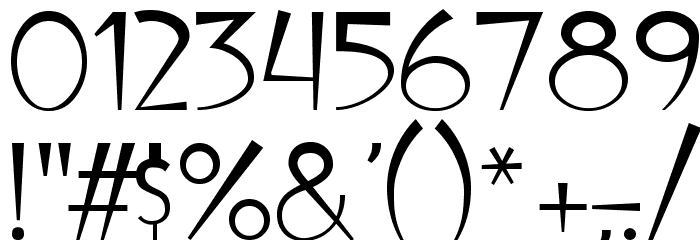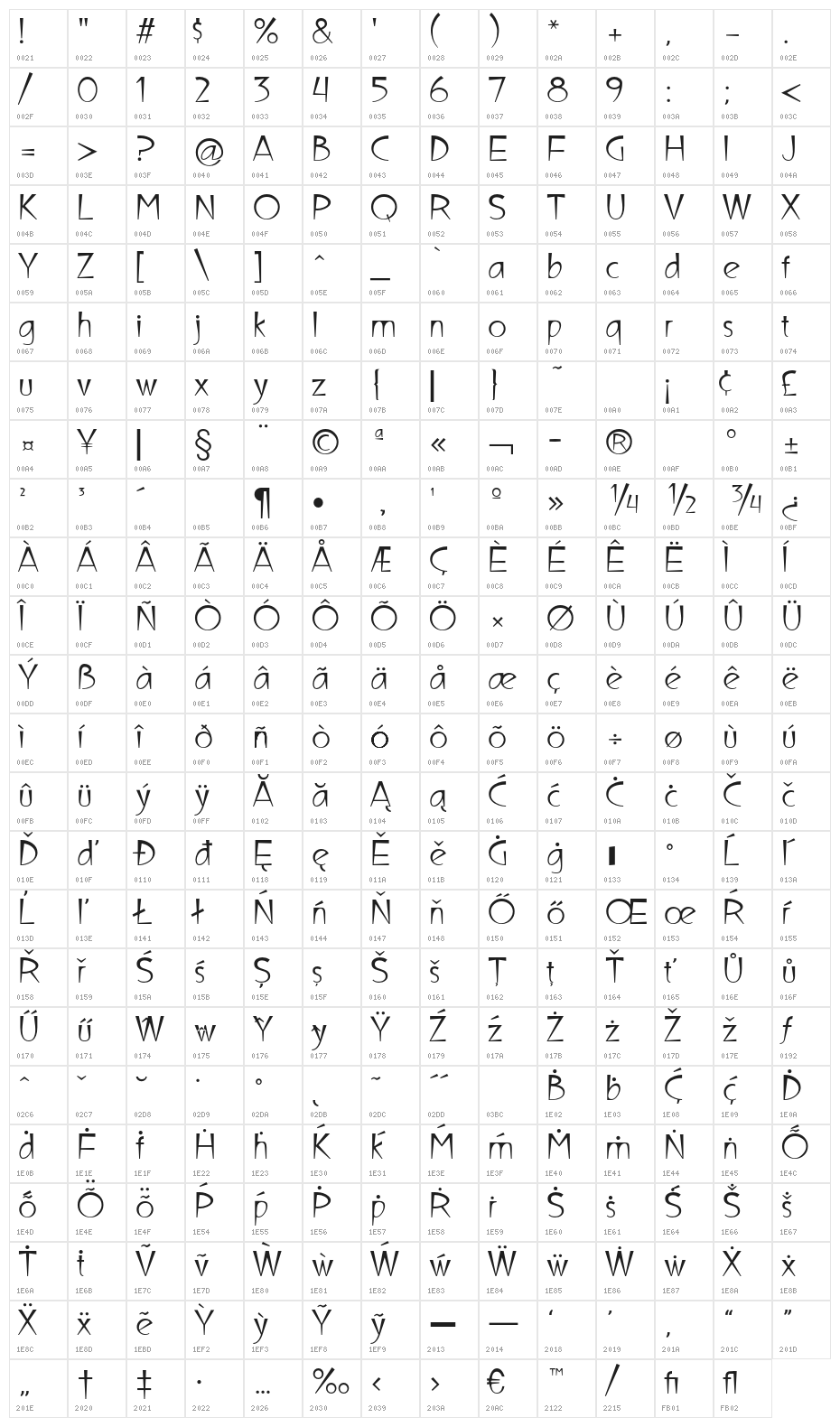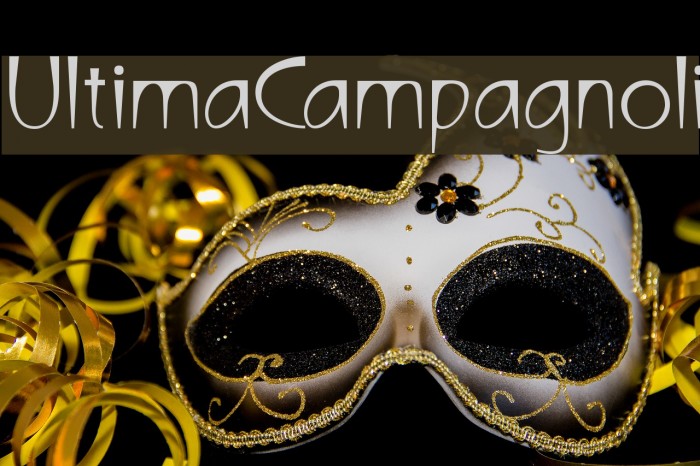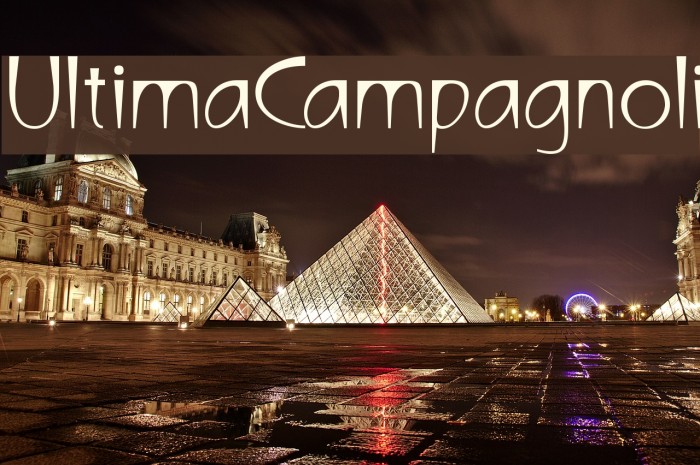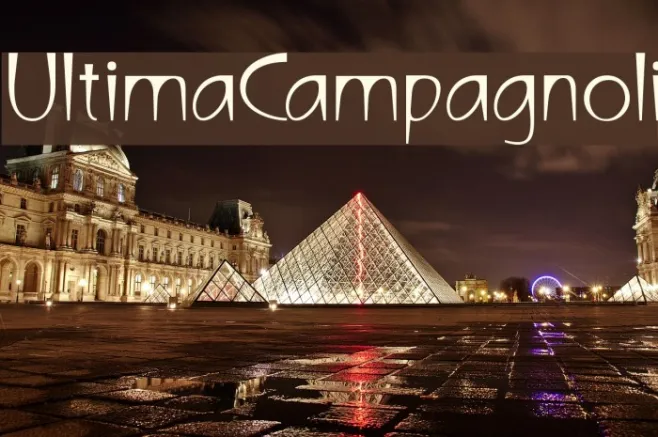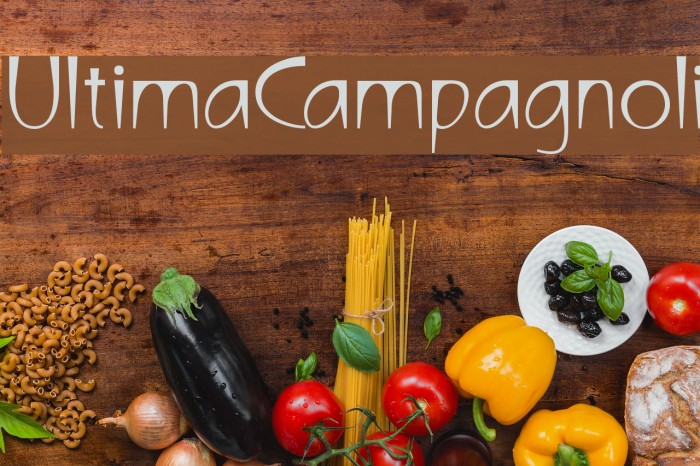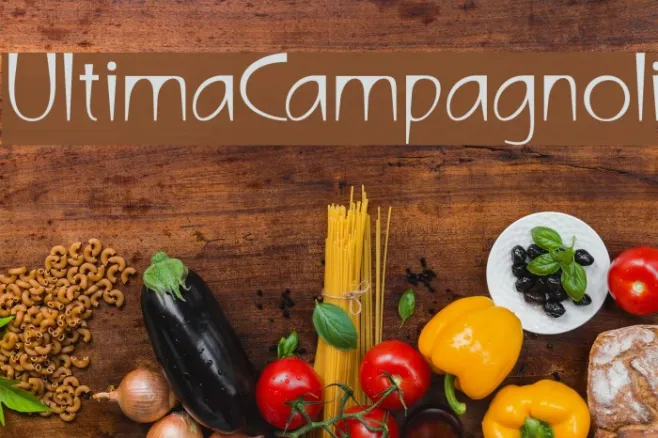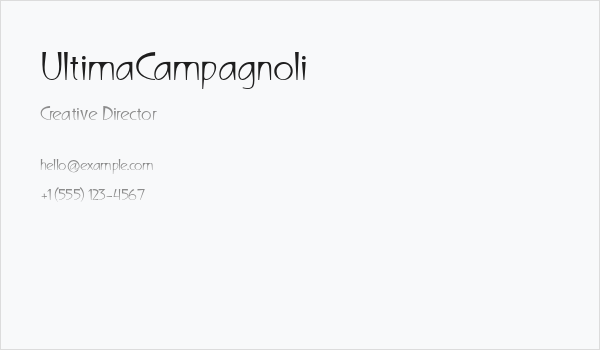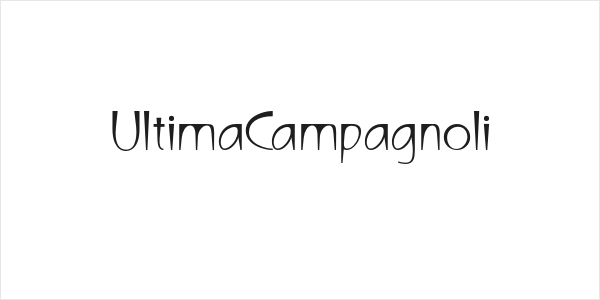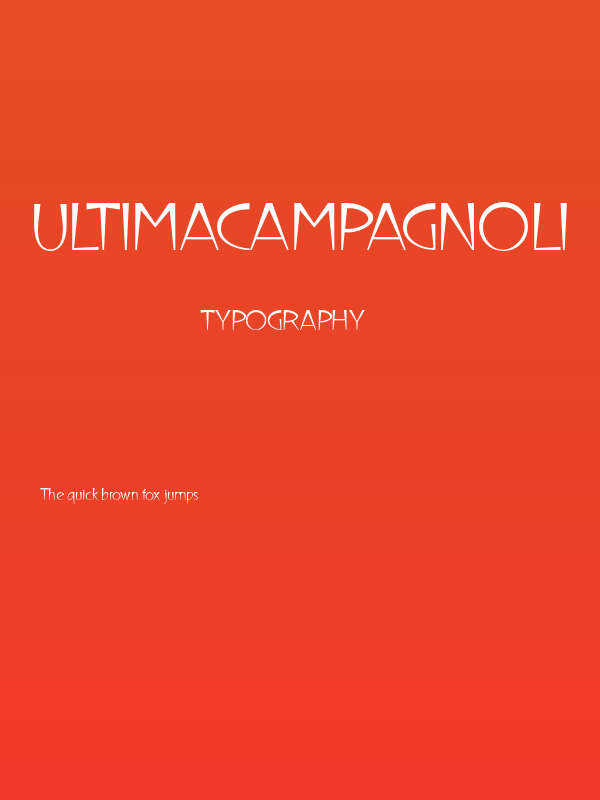
UltimaCampagnoli Font
This font features a unique blend of geometric and organic shapes, creating a playful yet sophisticated appearance. The uppercase letters are tall and narrow, with sharp angles and clean lines, while the lowercase letters exhibit a more rounded and fluid form. The numerals are distinct and easily readable, maintaining the font's overall quirky style. Special characters are creatively designed, adding to the font's charm. The font's design is modern and artistic, making it suitable for a variety of creative projects.
| Proposed Projects | Ideal for branding, posters, and creative projects that require a distinctive and artistic touch. |